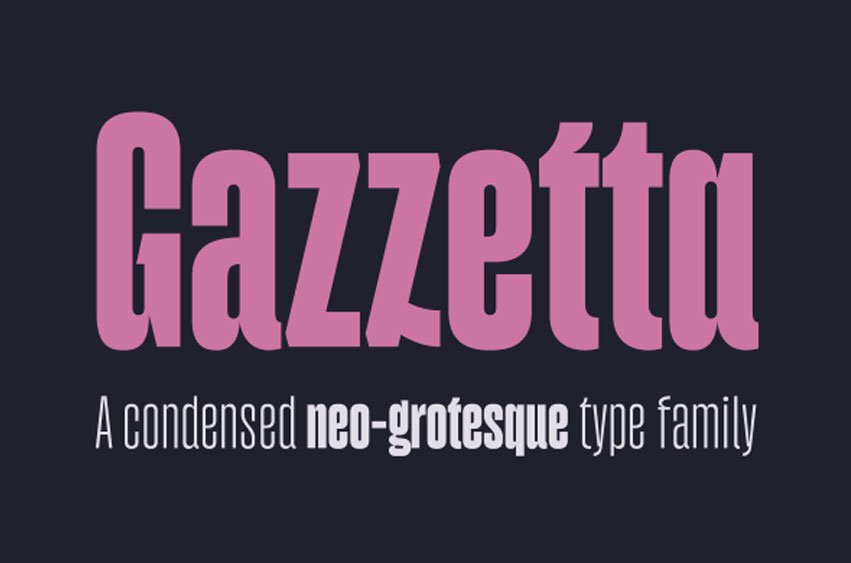
Gazzetta Font is a friendly neo-grotesque typeface which is compact and has a friendly feel to it. But these curvatures and features are reduced along with sharp joins at certain points; besides, its thickness is conspicuous. This family features such traits the weight variations and their slanted counterparts, and further modification to some symbols strive to maintain italic malt.
Other OpenType features offered include stylized Alternates consisting of Case Sensitive Forms old style figures are provided here in adequate measure along with fancy handles such as circled numbers quotation marks as well as arrows for finishing touches.
Additionally, the appearance and quality of this font qualifies this font for newspaper and magazine covers, books, posters, websites, large format products, and mobile applications.